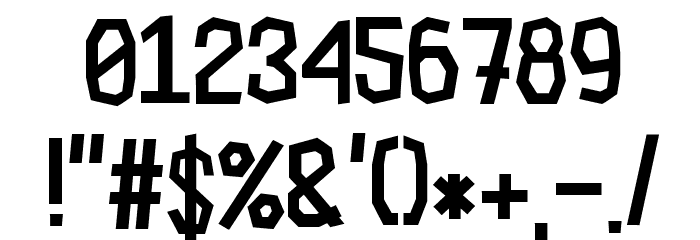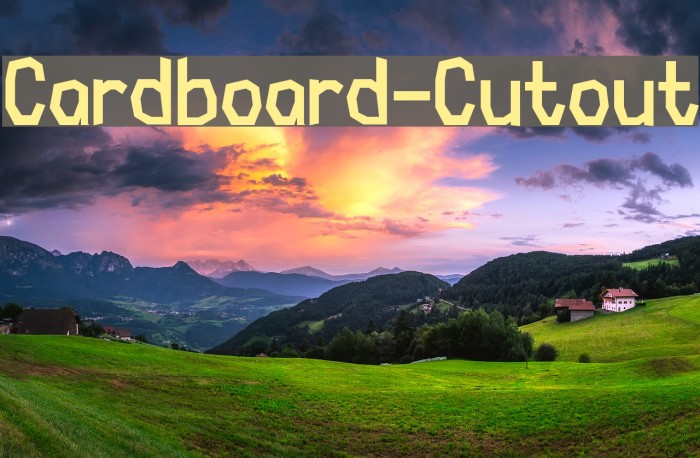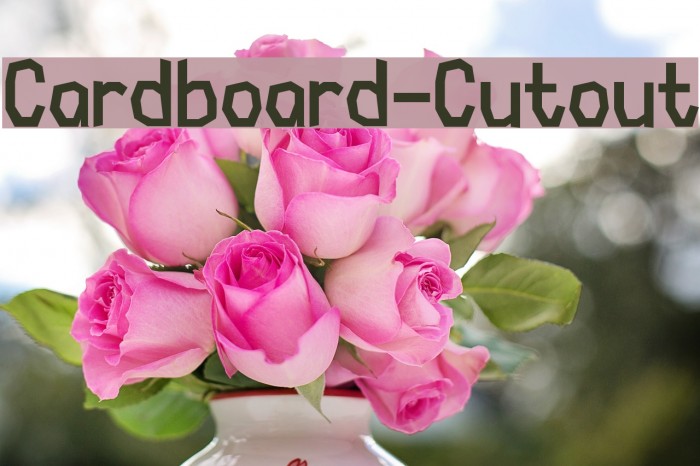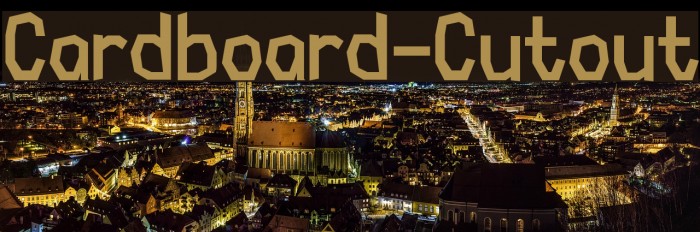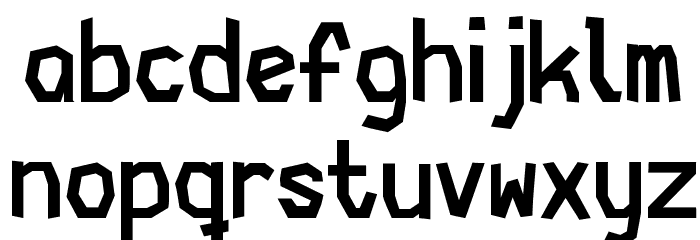
Cardboard-Cutout Font
Cardboard-Cutout Description
This font features a bold, geometric style with a distinct cutout appearance, reminiscent of letters crafted from cardboard. The characters have sharp angles and a slightly irregular form, giving them a handmade, artisanal feel. The uppercase and lowercase letters maintain a consistent style, with the uppercase being more angular and pronounced. Numbers and special characters follow the same aesthetic, ensuring a cohesive look across all elements. The font's unique design makes it stand out, ideal for projects that require a touch of creativity and uniqueness.
| Proposed Projects | Ideal for posters, creative branding, packaging design, and artistic projects. |